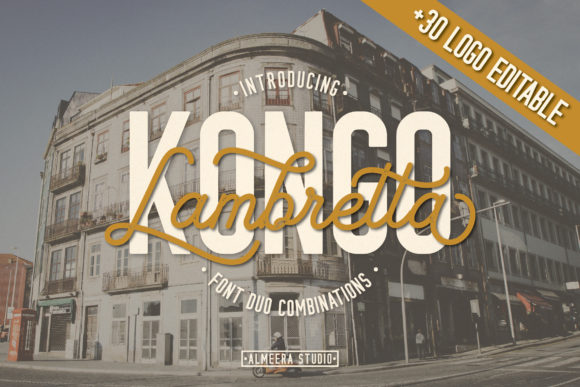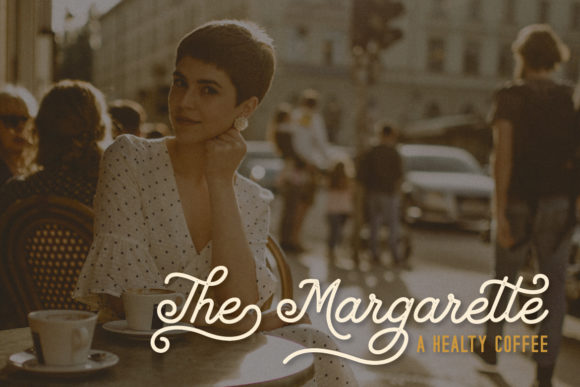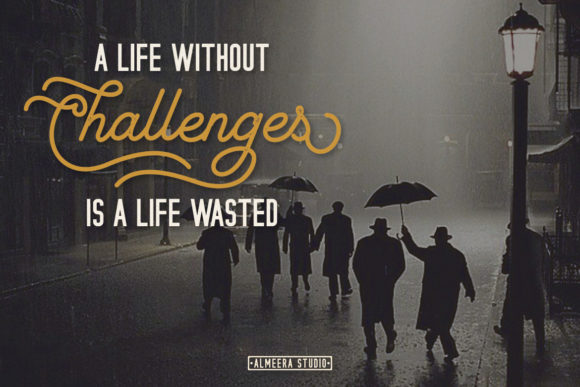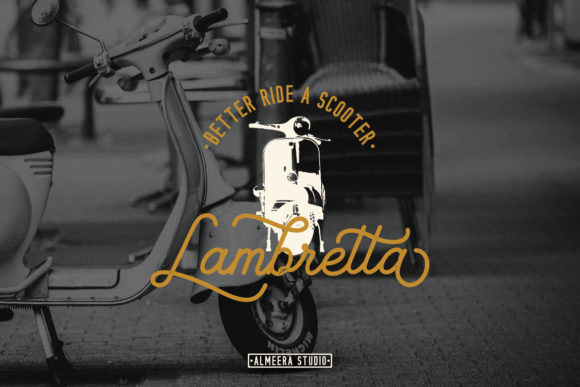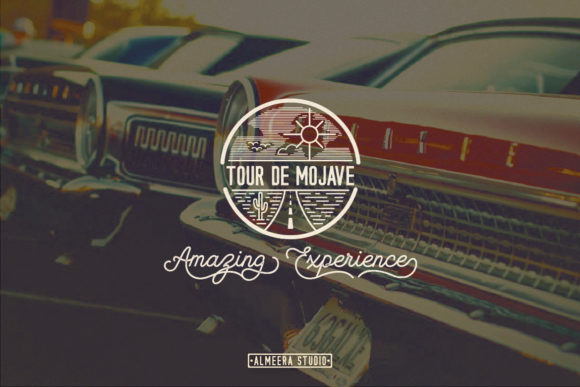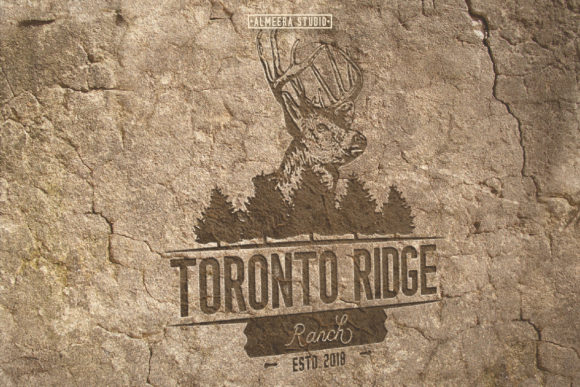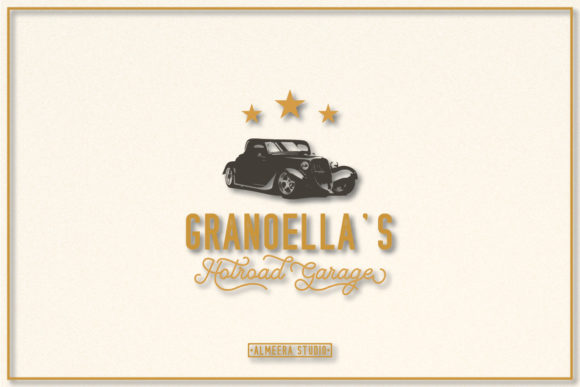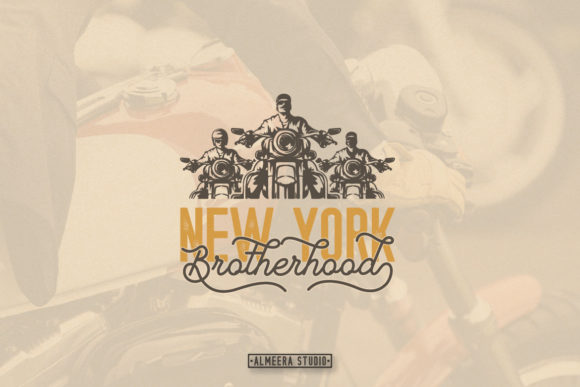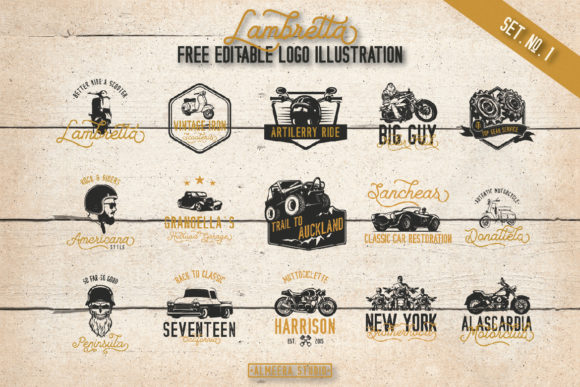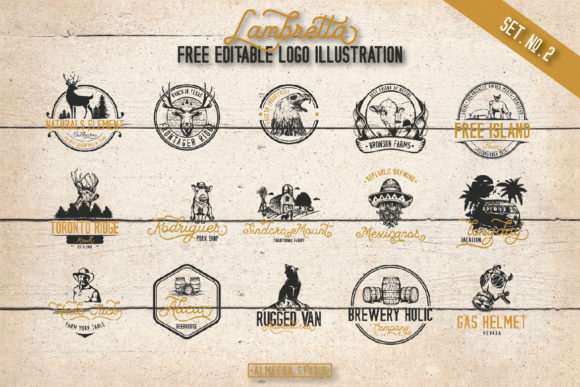
Lambretta Kongo Duo Font
About Lambretta Kongo Duo Font
The Lambretta Kongo is a beautiful font duo. The two includes fonts come in two styles; script and sans, and are equipped with regular en stamped versions. They can be combined together, but are also perfect on their own.